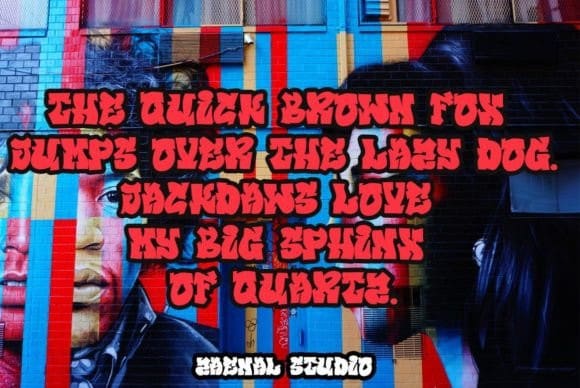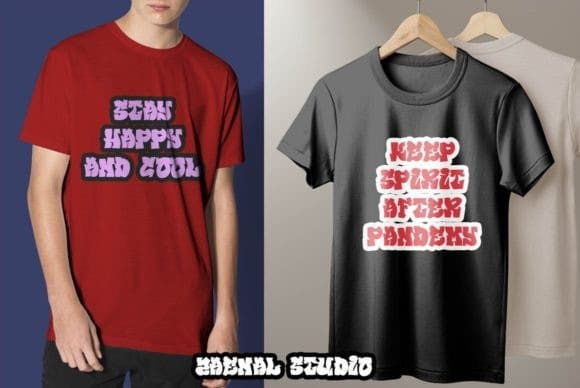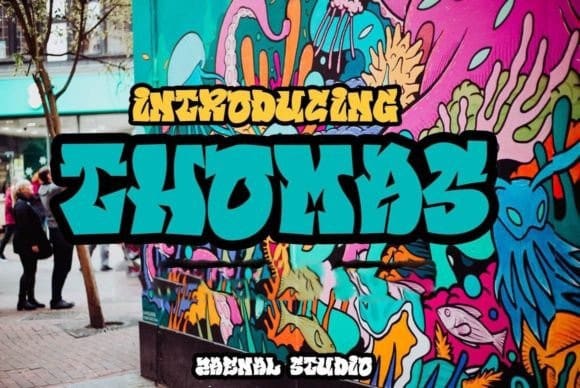
Thomas Display Font
Thomas Display Font, is a unique and fun Grafitti display font perfect for brand and logo designs, and especially great for games. It is perfect for cartoons, branding, and logo designs. You will get a modern, cool, and of course unique logo with this font.
To make it look even more unique, this font includes various alternates, so you can create an amazing design every time!